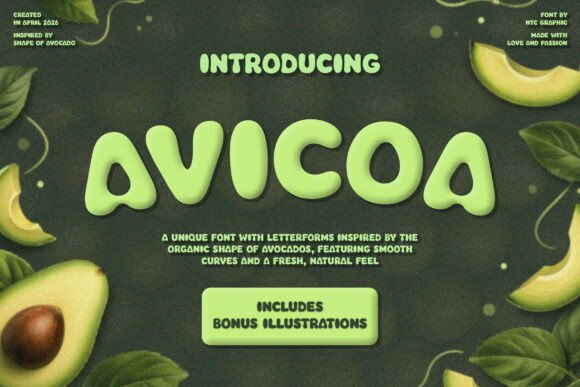
Discover the Freshness of Avicoa: The Organic Avocado Font
I’ll never forget the time I was working on a branding project for a trendy new cafe, and I just couldn’t find the right font to capture their fresh and eco-friendly vibe. The client wanted something that would appeal to health-conscious customers and stand out on their menu and packaging. That’s when I stumbled upon Avicoa, an adorable avocado-inspired font that instantly won me over. In this article, I’ll share my experience with Avicoa, its unique features, and how you can make the most of it in your designs.
A Personal Review of Avicoa
What I Love About Avicoa ✨
• ✅ Smooth, rounded letterforms that evoke the natural shape of avocados
• ✅ A fresh and organic feel that’s perfect for clean and friendly designs
• ✅ Highly versatile and suitable for various applications, from branding and logo design to packaging and merchandise
• ✅ Easy to read and works well in both digital and print formats
While Avicoa is an excellent font, there are a few minor things to keep in mind:
• 🤔 Some characters may not work well in very small sizes, so it’s best to use it at larger sizes (from 18pt onwards)
• ⚠️ Limited language support, so double-check the character set before using it for multilingual projects
The Story Behind Avicoa
Avicoa was designed with a passion for nature and a love for creative expression. The designer, inspired by the smooth curves and organic shape of avocados, set out to create a font that would bring a fresh and friendly feel to designs. With Avicoa, you’ll get a unique and versatile font that’s perfect for a wide range of applications.
Q: Is Avicoa suitable for body text?
While Avicoa is a beautiful font, it’s best suited for headlines, titles, and short paragraphs. For longer body text, you may want to choose a more traditional serif or sans-serif font.